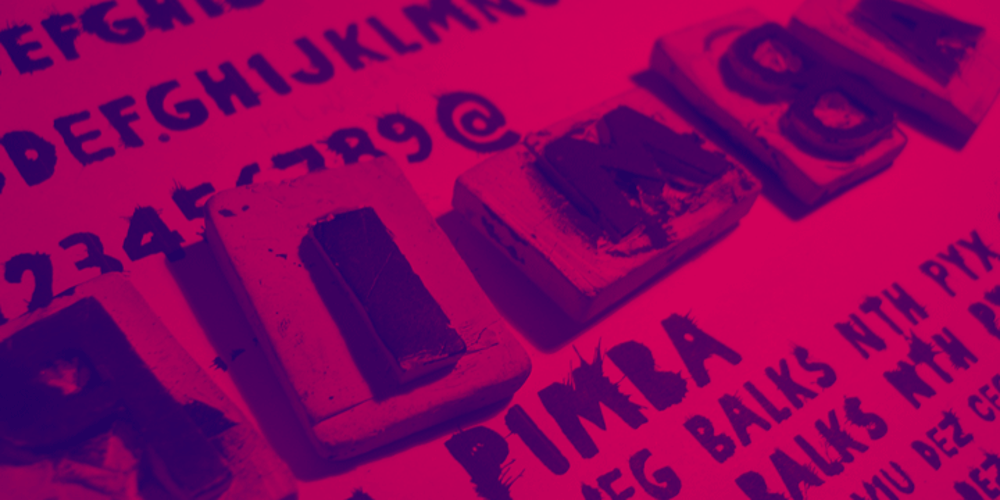
Pimba
Pimba font
Pimba Font Family was designed by Gustavo Lassala and published by BRtype. Pimba contains 1 styles and family package options. Pimba is an original font. All characters were designed from handmade rubber stamps and printed with much ink.